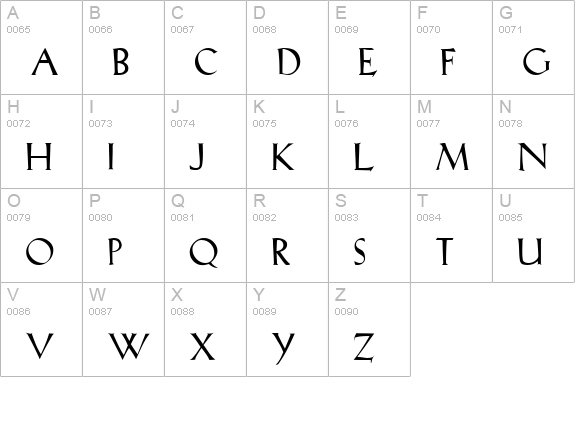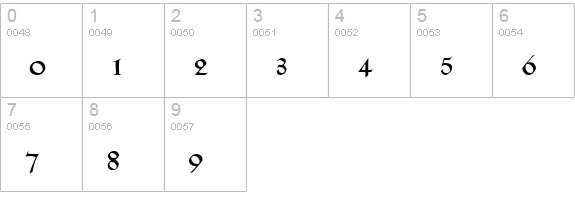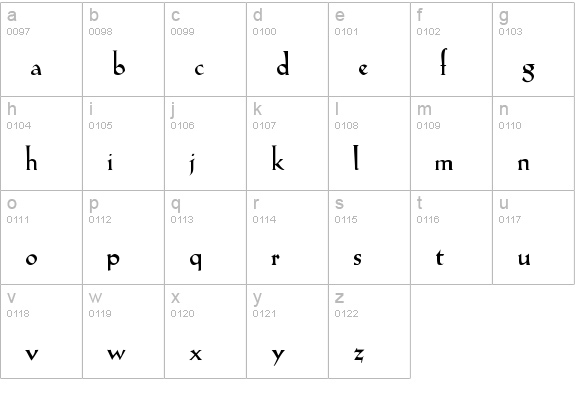
Lilith-Heavy Regular is a heavy, high-impact variant in the Lilith typeface family \xE2\x80\x94 well suited to high-impact headlines, posters, and display advertising.
Lilith-Heavy Regular font is a bold and striking typeface that exudes confidence and modernity. With its strong, thick lines and sharp edges, this font is perfect for making a statement in your designs. Whether you're creating posters, logos, or headlines, Lilith-Heavy Regular will command attention and leave a lasting impression. Best of all, this font is available for free download at FontsMarket.com. Simply visit the website to access this versatile and eye-catching typeface for all your design needs. Don't miss out on the opportunity to enhance your projects with the dynamic and impactful Lilith-Heavy Regular font today!